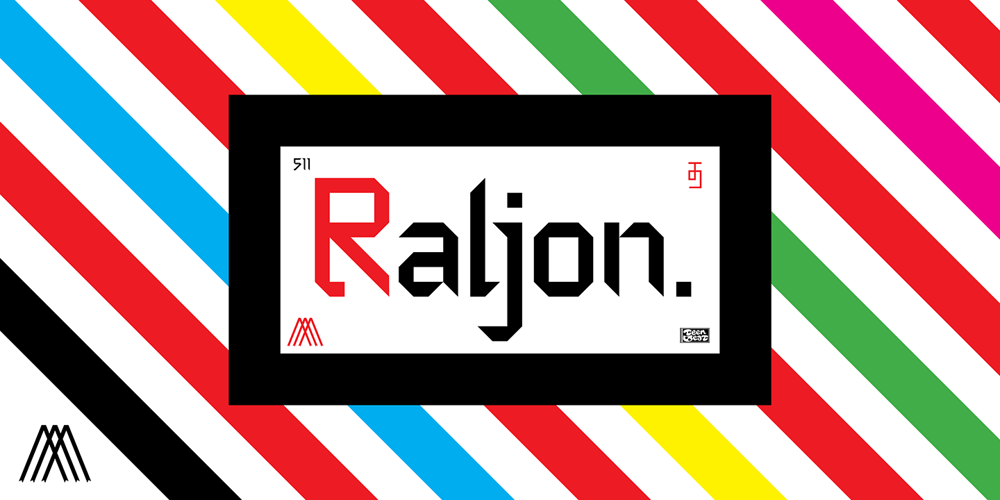
Raljon Font Family was designed by Mark Robinson and published by Mmarkk. Raljon contains 1 styles and family package options. Raljon is a display typeface created by designer and lettering artist Mark Robinson. It is a collaboration between the Mmarkk and Teen-Beat Graphica visual design studios. This single font was created over a period of five years. Mark took great care in finessing each character and making sure that each character would stand on its own and yet simultaneously, be an integral part of the whole.The typeface is inspired by Gothic letterforms, horror novels, speed metal bands of the 1980s, techno and electronic music of the 1990s, and Washington, DC football teams whose stadiums lie in the Maryland suburbs. While it doesn’t have multiple weights, Raljon does have a deep depth and breadth. It has a seemingly endless amount of alternate characters and ligatures. There are nine letter Ms, eight letter As and Fs, seven Rs and Ts, and the list goes on. Even the figures have alternates.